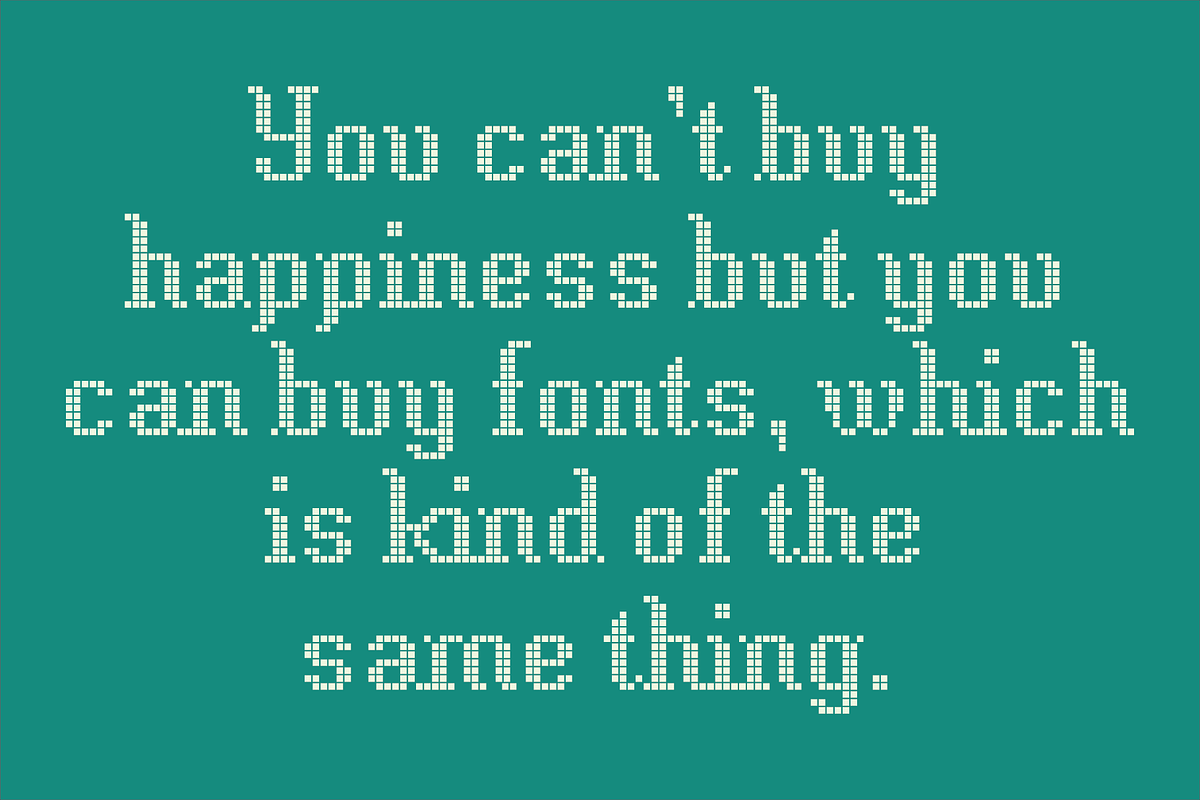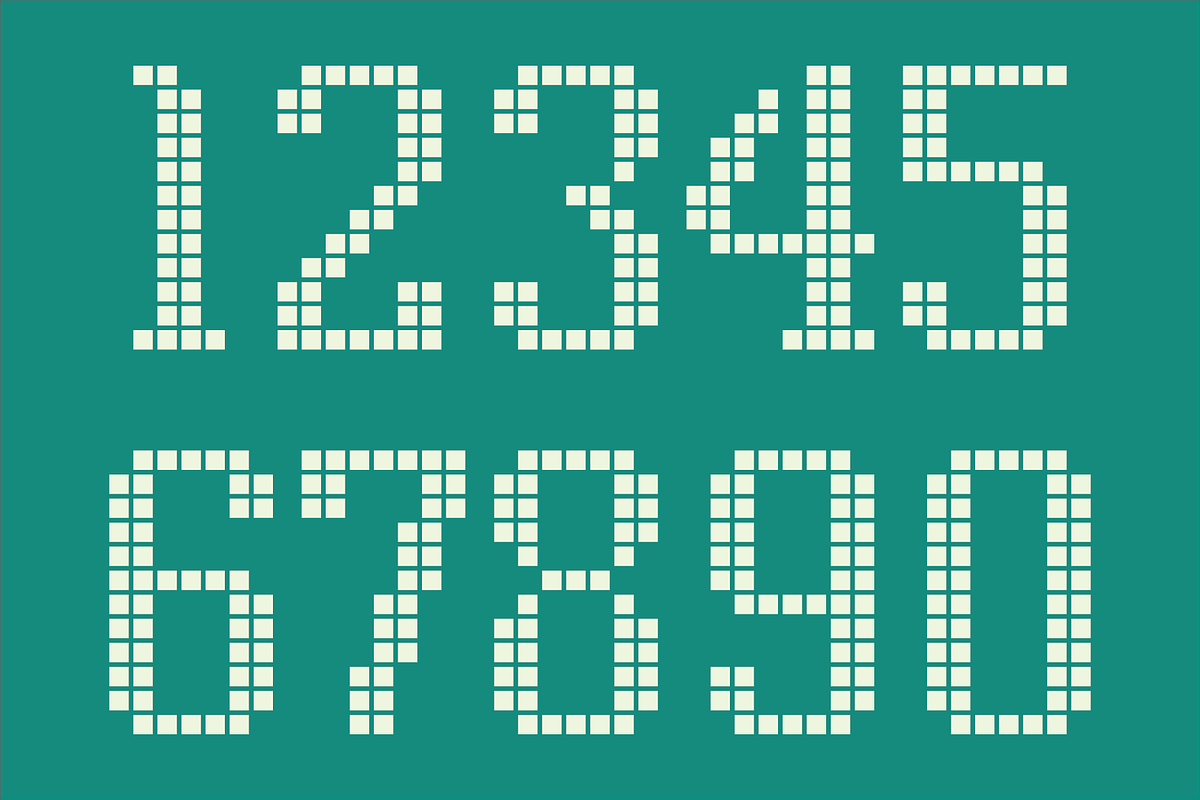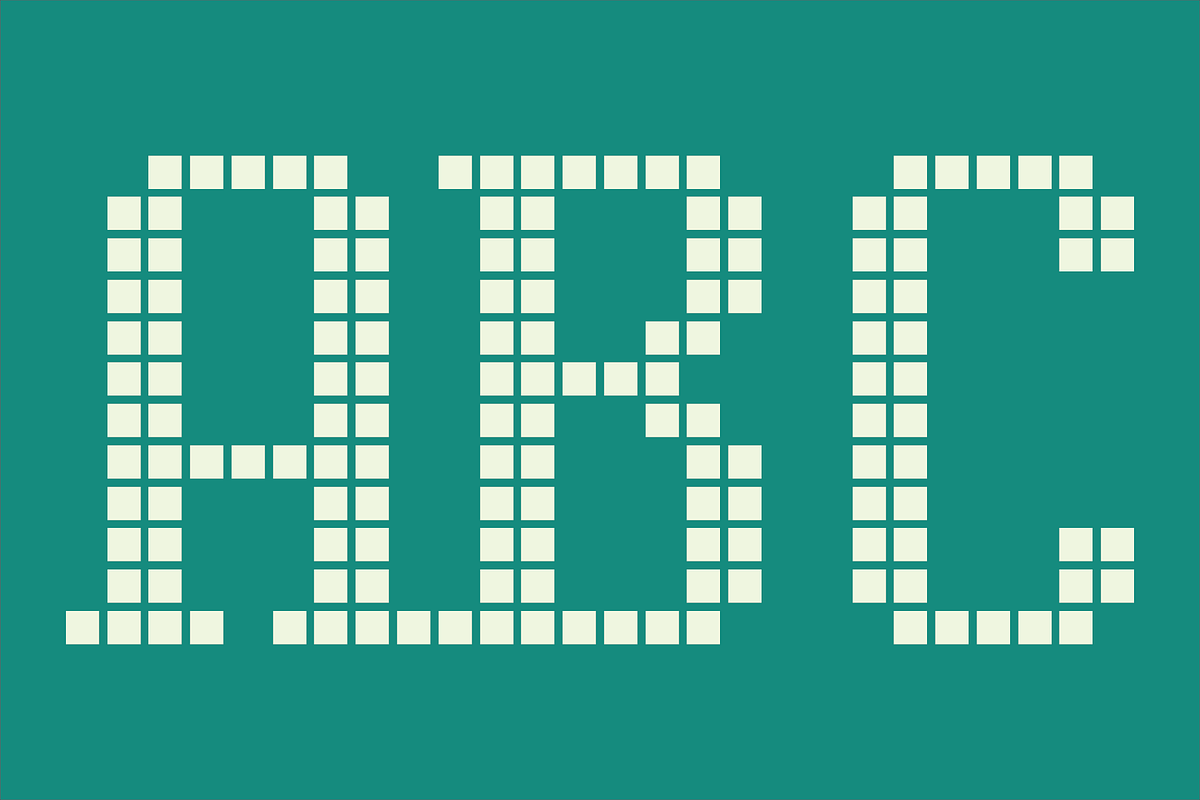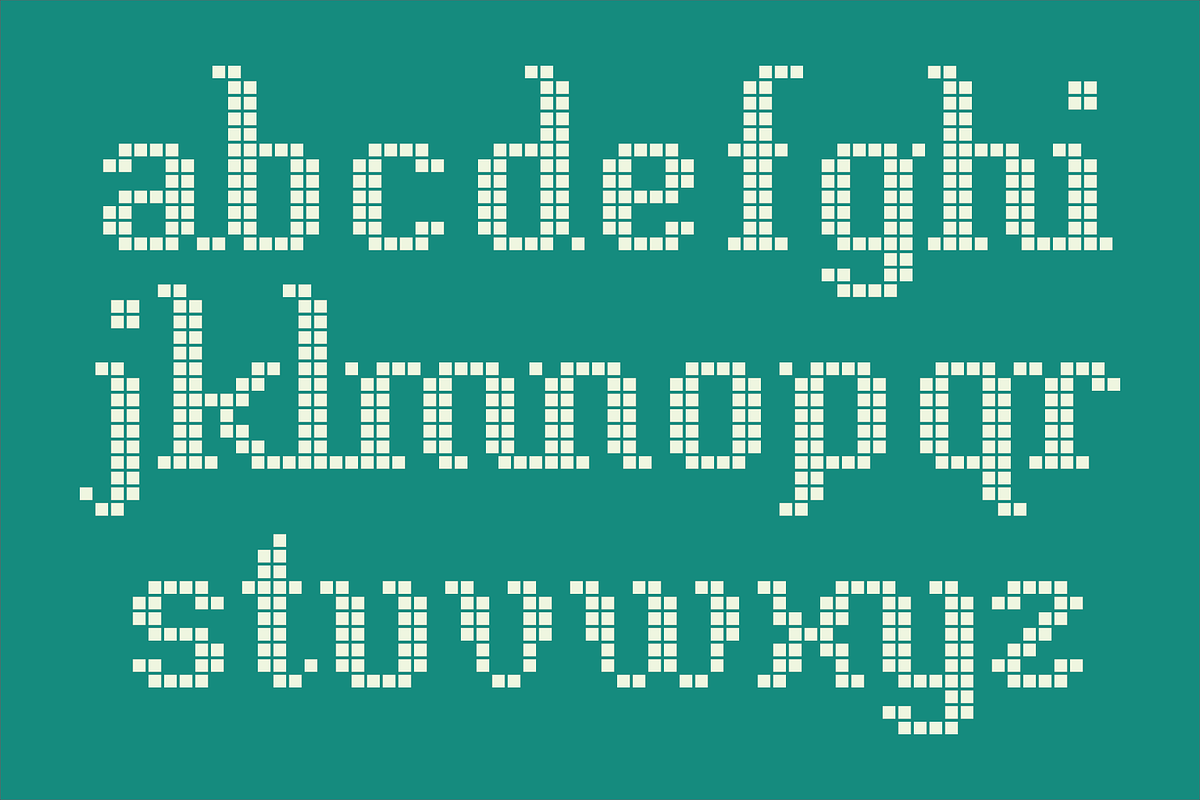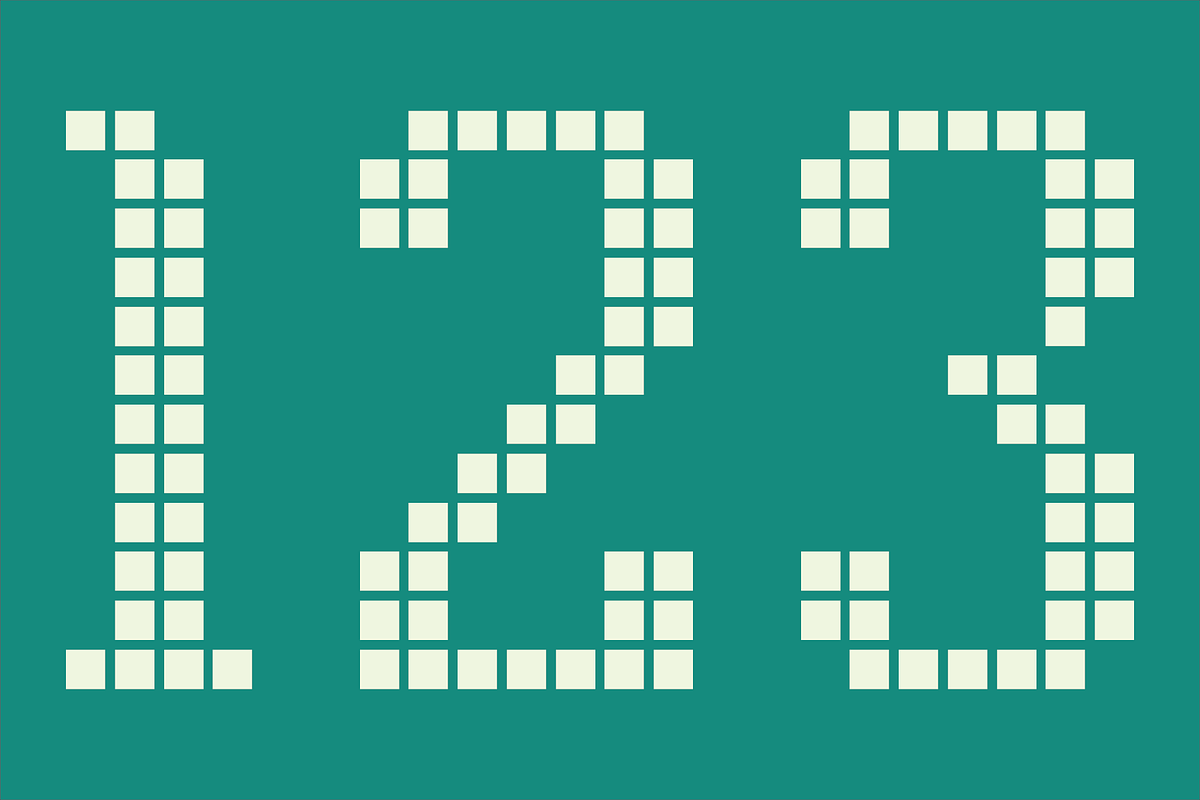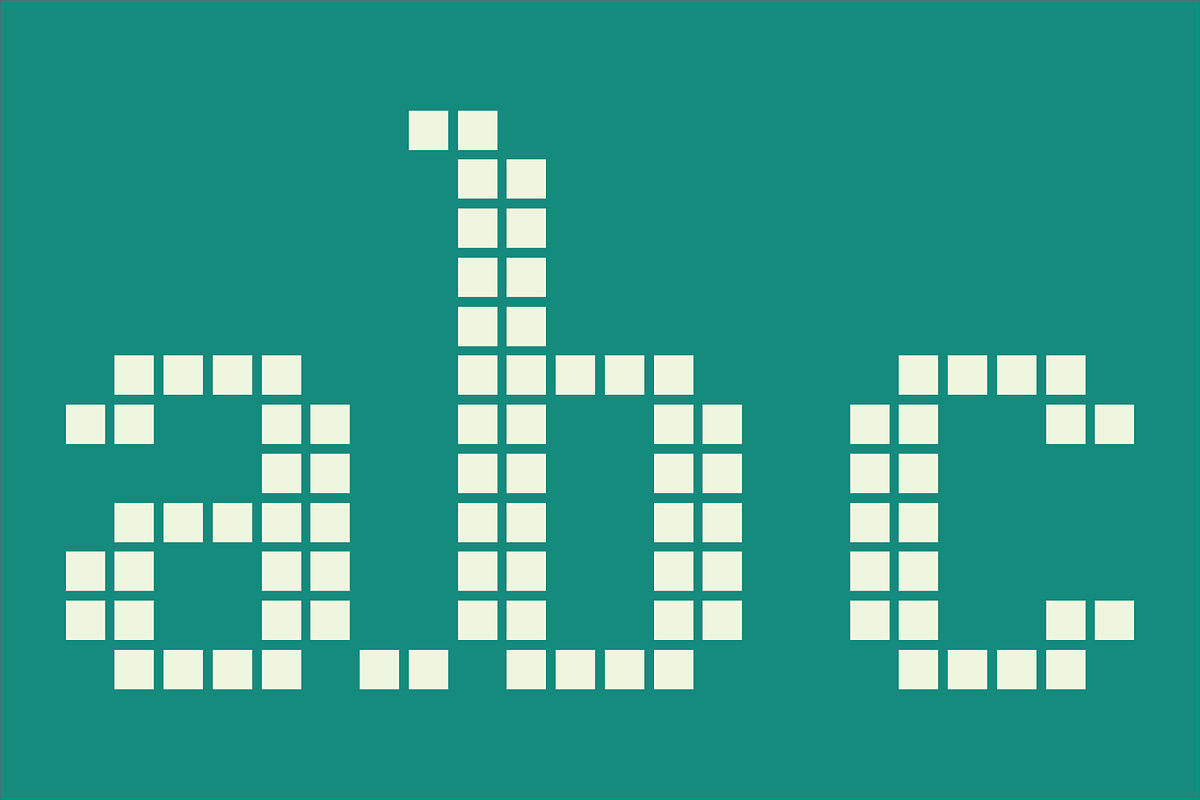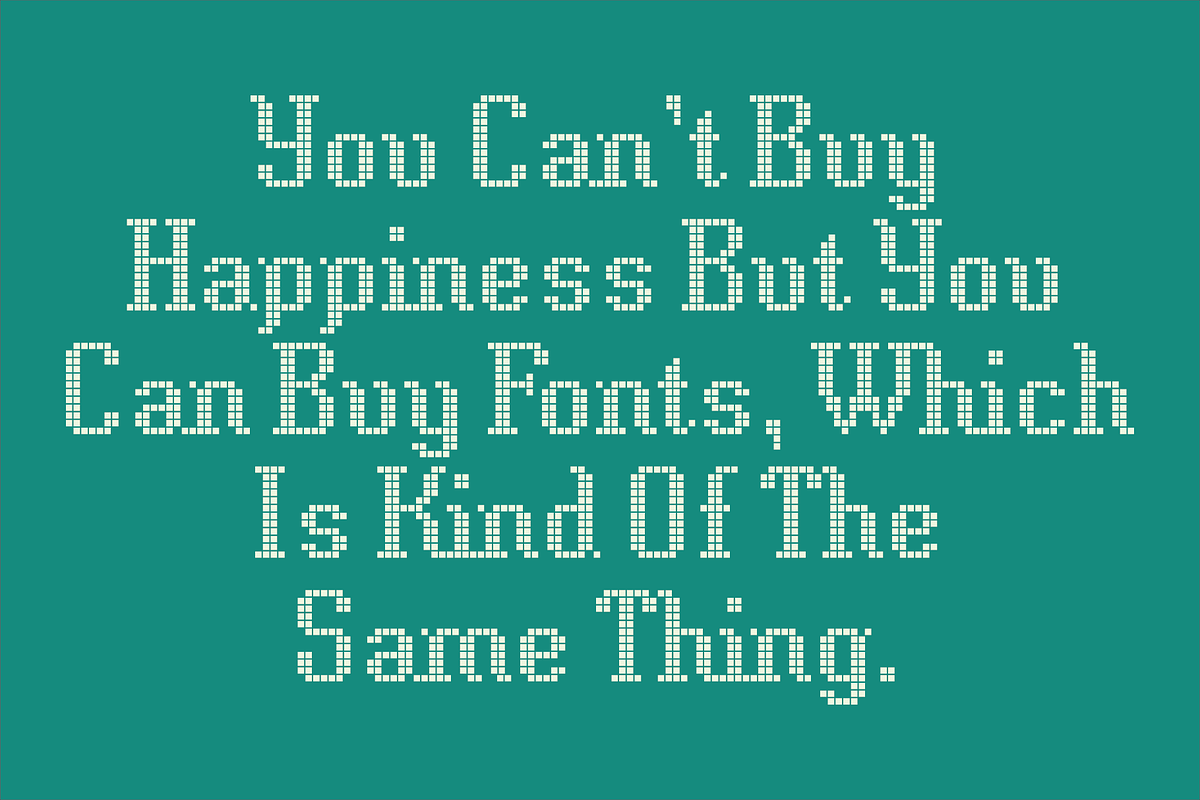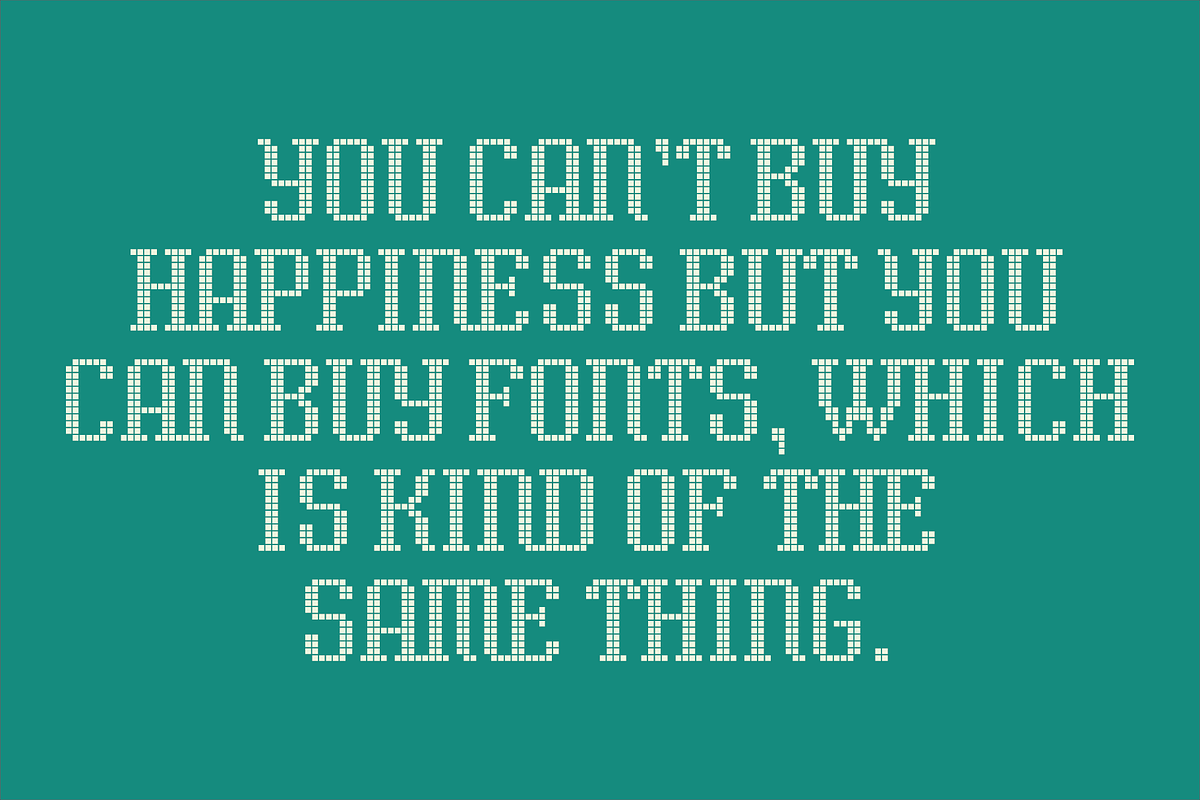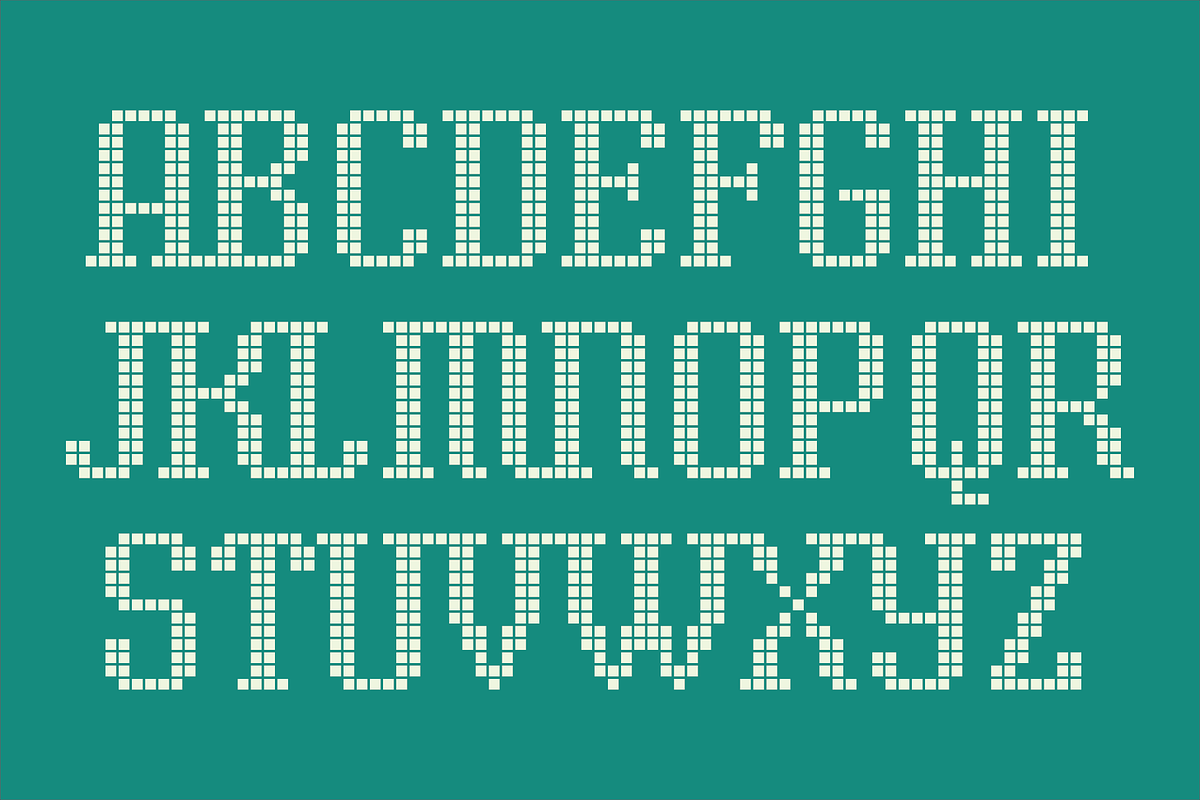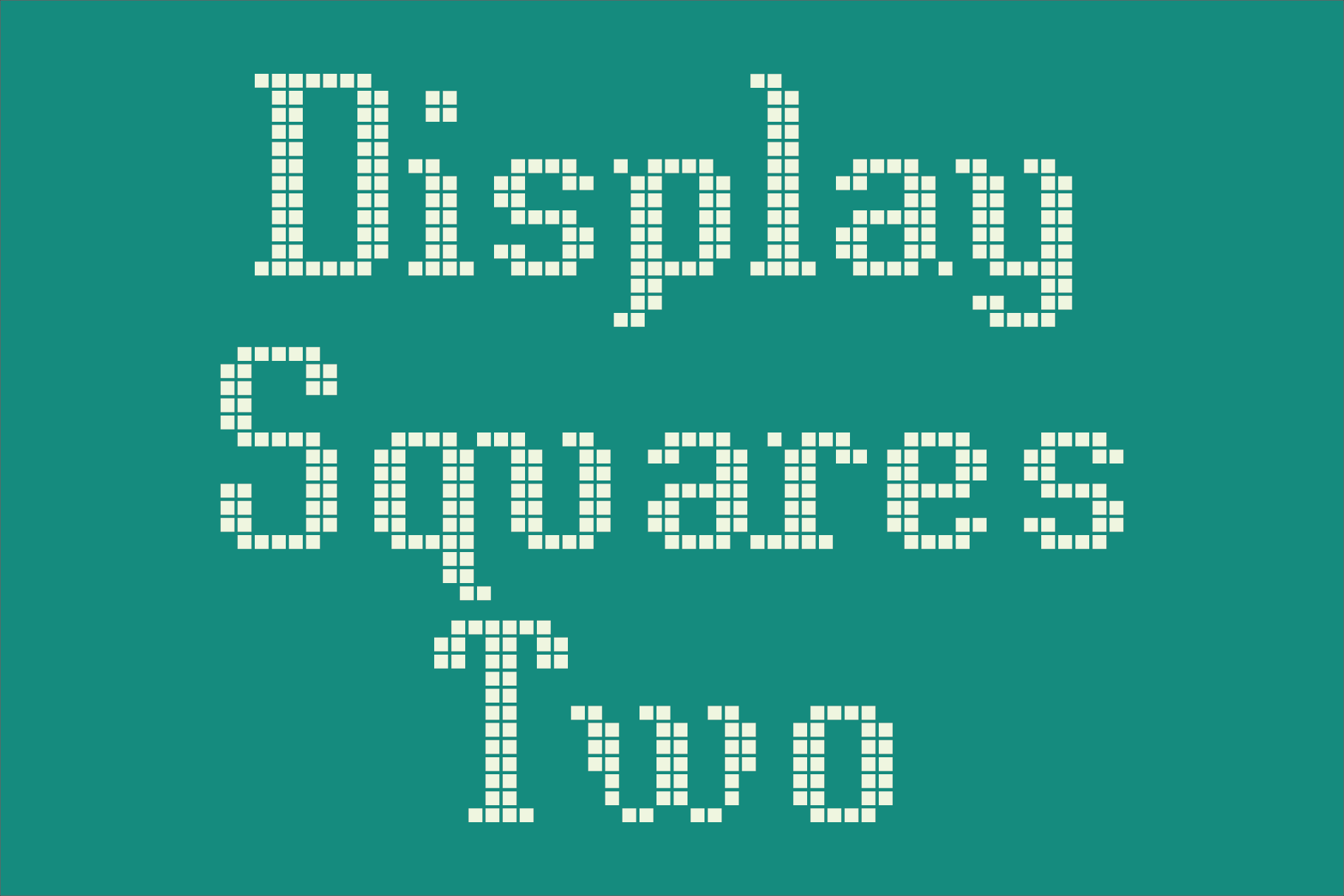
Display Squares Two Font
Display Squares Two is a display font not intended for text use. It was designed specifically for display, headline, logotype, branding, and similar applications. It has an uppercase and lowercase alphabets, numbers, dollar, pound and euro signs, and basic punctuation. The cap height is 12 squares tall.